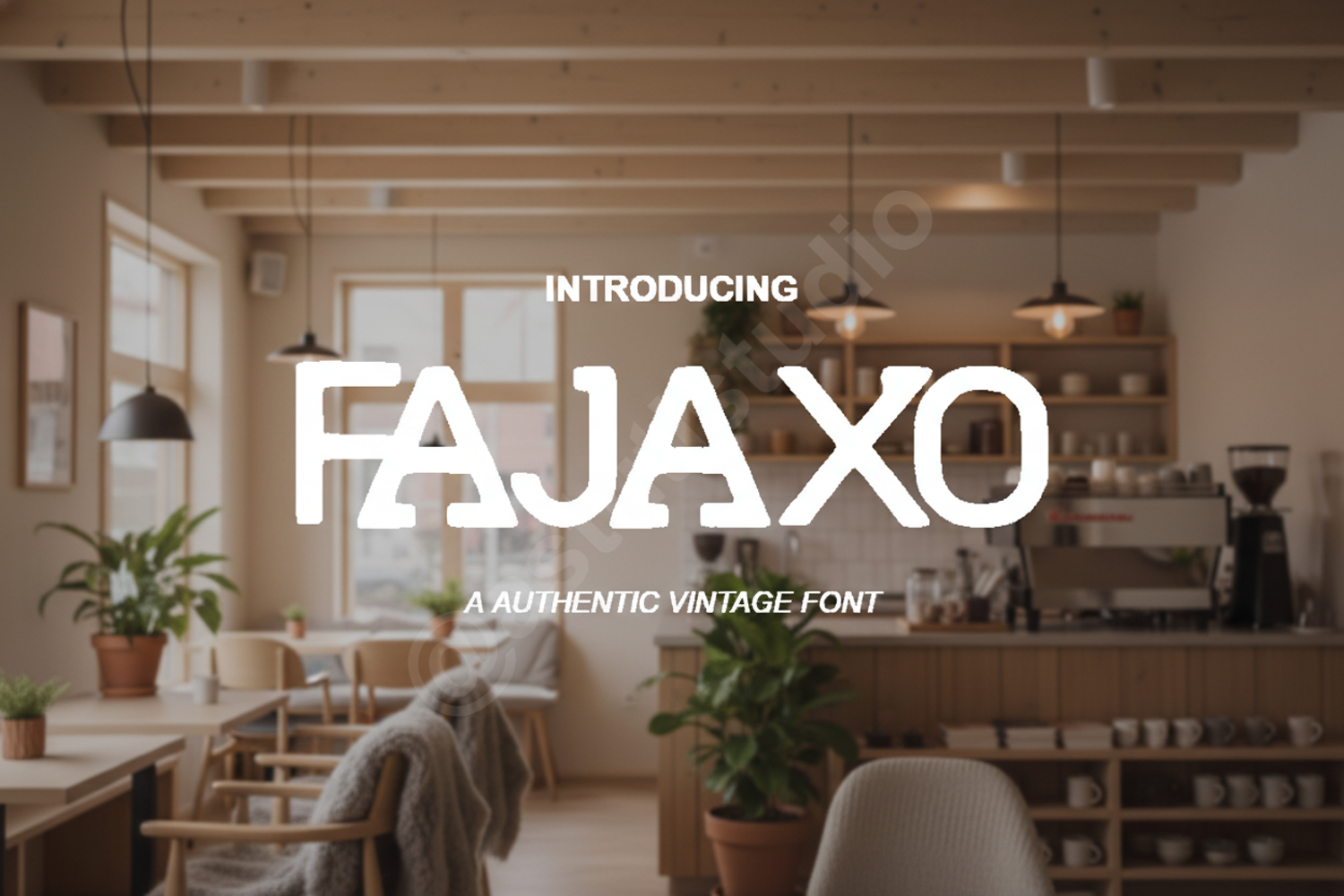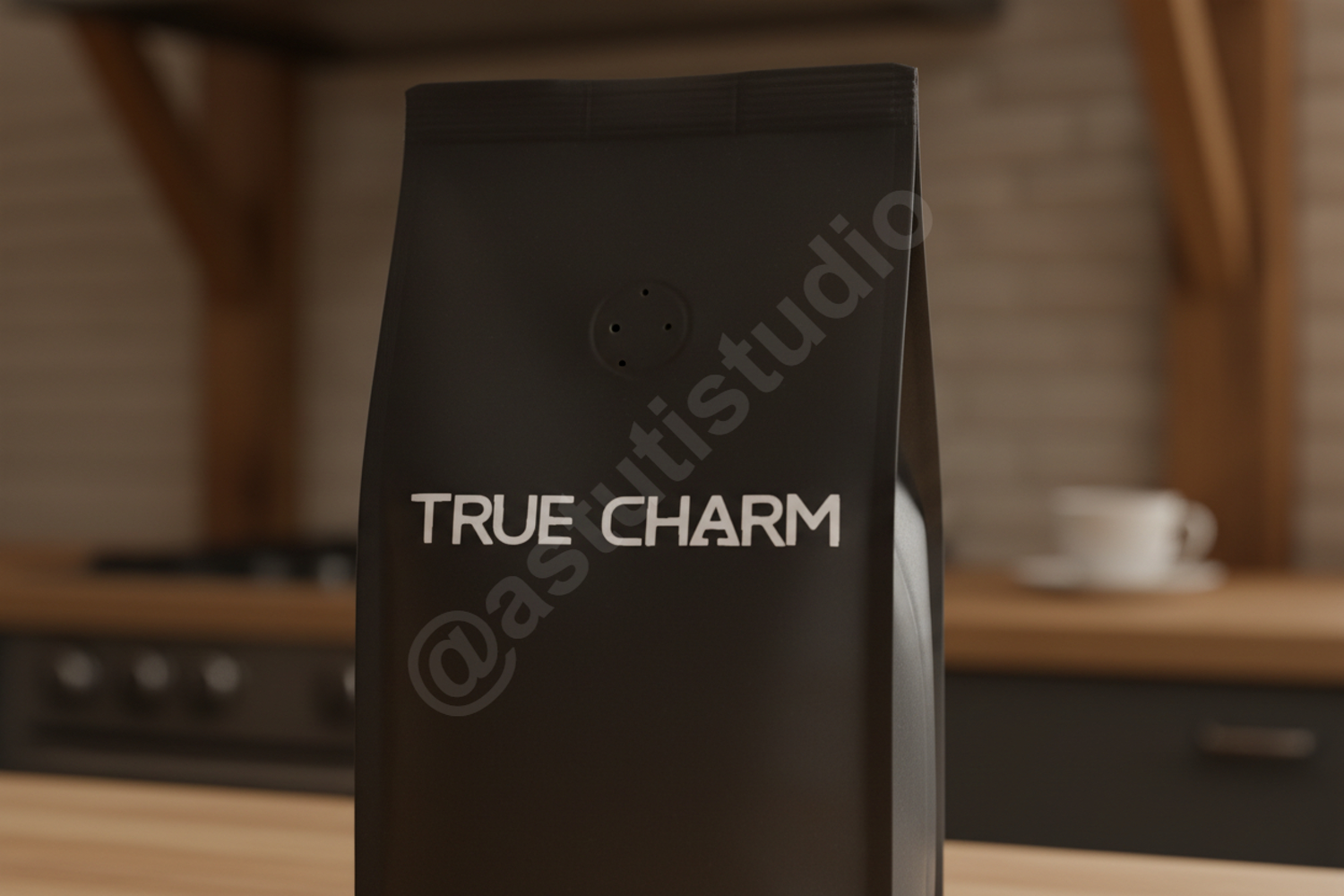
Fajaxo - Modern Geometric Sans Serif
Fajaxo
Fajaxo is a premium sans serif typeface that blends geometric precision with modern elegance. Designed for high-impact visuals, this font offers exceptional legibility and a sophisticated aesthetic that elevates any project. Whether you are crafting a minimalist brand identity or a bold editorial layout, Fajaxo provides the versatility and professional polish required for contemporary design.
- Full set of uppercase and lowercase letters
- Numbers, punctuation, and multilingual support
- Branding and Identity Design: Create memorable logos and corporate stationery.
- Editorial Layouts: Perfect for magazine headers, body text, and book covers.
- Digital Marketing: Enhance your social media graphics and web banners.
- Product Packaging: Add a clean, upscale feel to labels and boxes.
- UI/UX Design: Improve readability across digital interfaces and mobile apps.